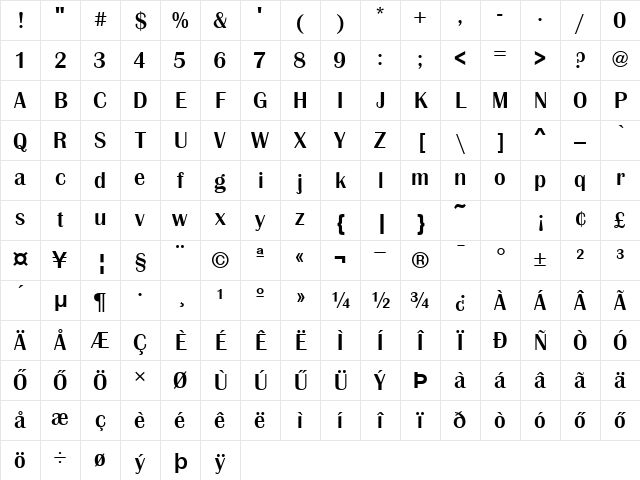
Hu_Britannic Regular Free Font
Hu_Britannic Regular
Design Context for Hu_Britannic
Hu_Britannic is a composed and adaptable typeface that performs quietly and consistently across a wide range of design contexts.